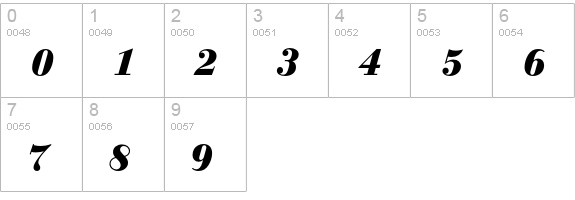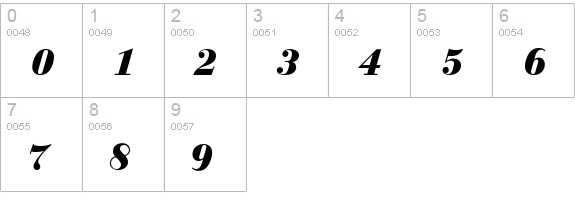
Bauer Bodoni T Bold Italic Font Details
Bauer Bodoni T Bold Italic is a strong, high-contrast, italic variant in the Bauer typeface family \xE2\x80\x94 well suited to headlines, attention-grabbing titles, and strong calls-to-action.
The Bauer Bodoni T Bold Italic font exudes elegance and sophistication with its distinctive balance of thick and thin strokes in a slanted design. The bold italic style adds a touch of flair and emphasis to any text, making it perfect for headlines, titles, and other eye-catching elements. This font's timeless charm and modern appeal make it a versatile choice for a wide range of design projects. Best of all, the Bauer Bodoni T Bold Italic font is available for free download at FontsMarket.com. Whether you're a professional designer looking to add a touch of class to your creations or a hobbyist seeking to elevate your projects, this font is a valuable addition to your toolkit. Don't miss out on the opportunity to enhance your designs with the Bauer Bodoni T Bold Italic font, now easily accessible at FontsMarket.com.